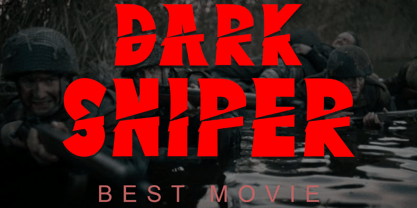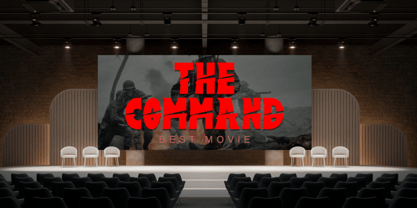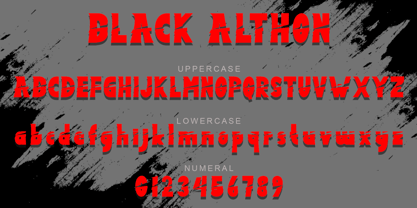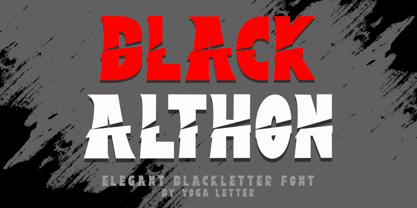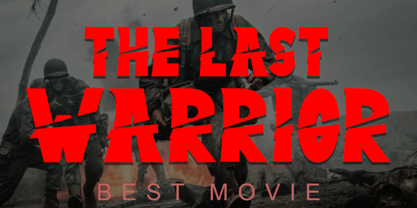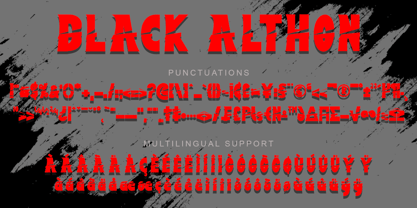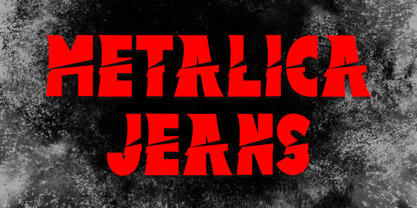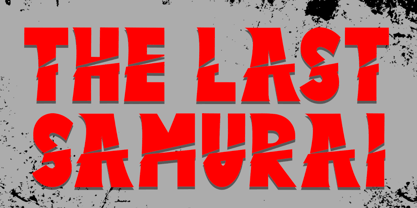
Black Althon
by Yoga Letter
The Black Althon Font Family was designed by Isroni Yoga Prasetya and published by Yoga Letter. Black Althon contains 1 styles. More about this family
"Black Althon" is an elegant and unique blackletter font. This font is equipped with uppercase, lowercase, numerals, punctuations and multilingual support. It is very suitable for use as a movie font, movie title, metal concert, business branding, sticker, poster, banner, logo, print and others.